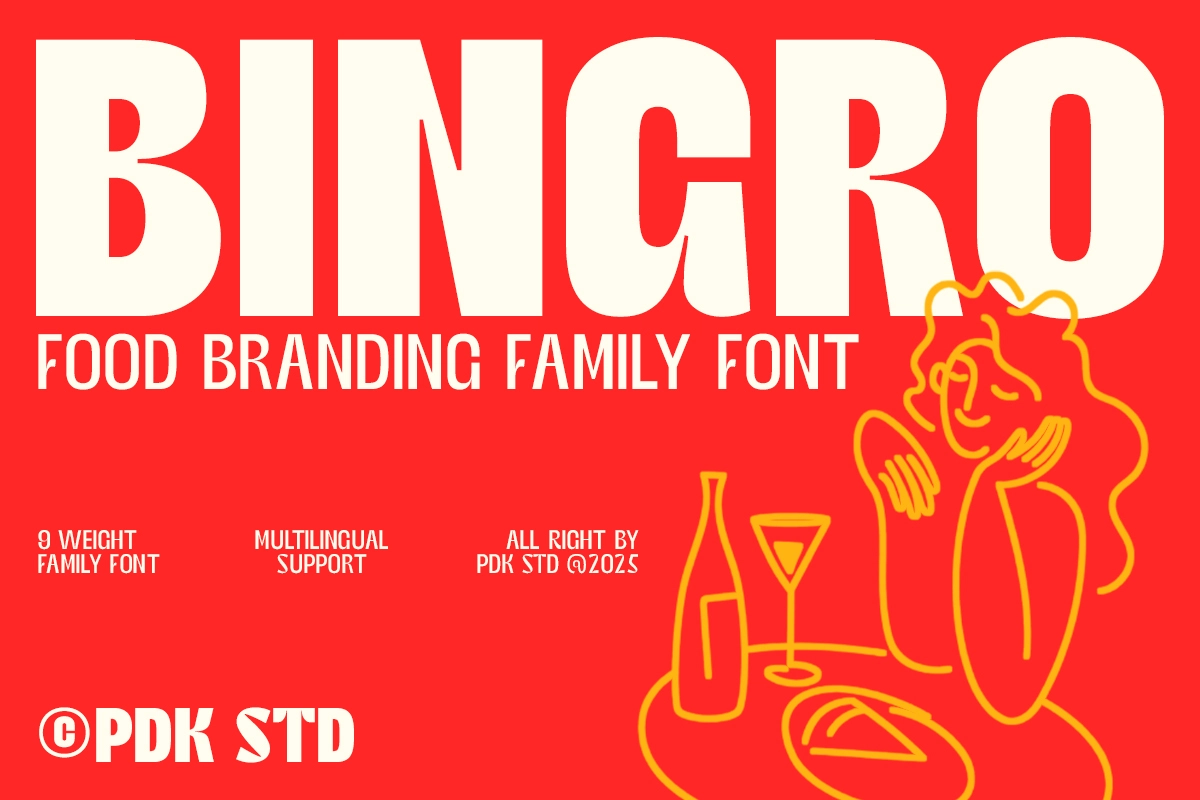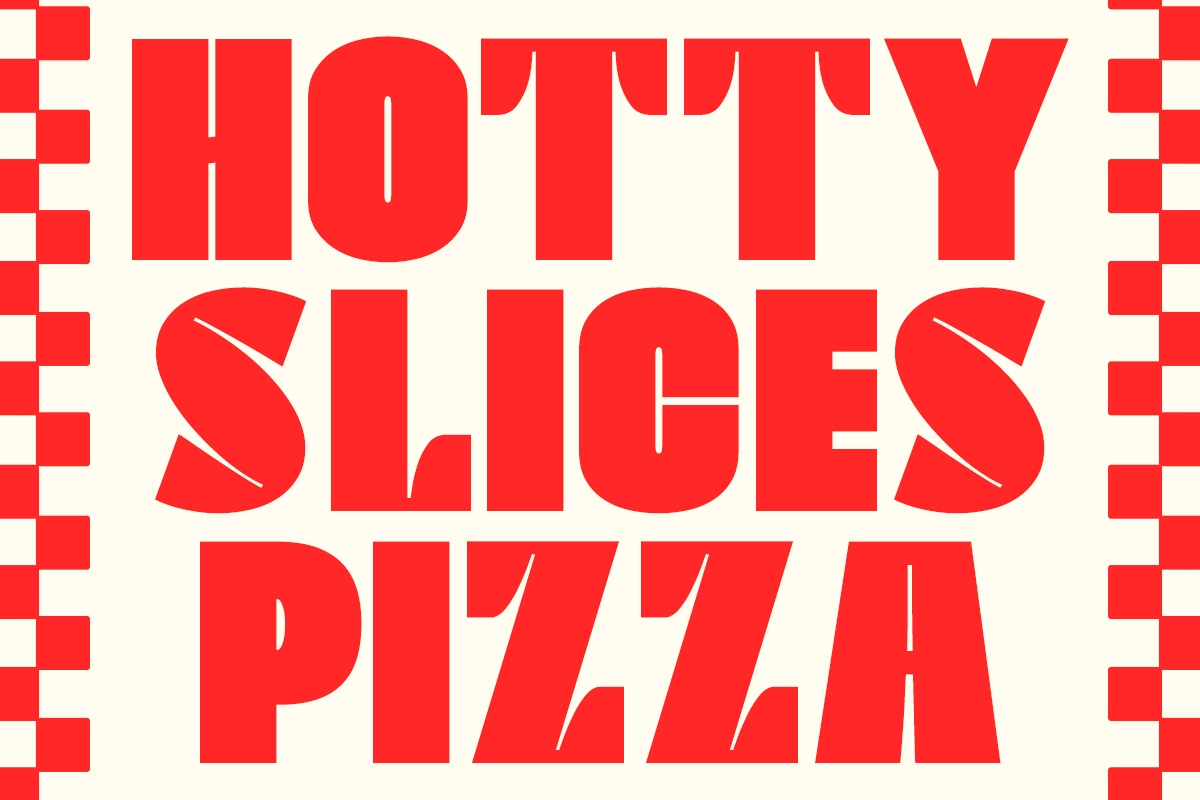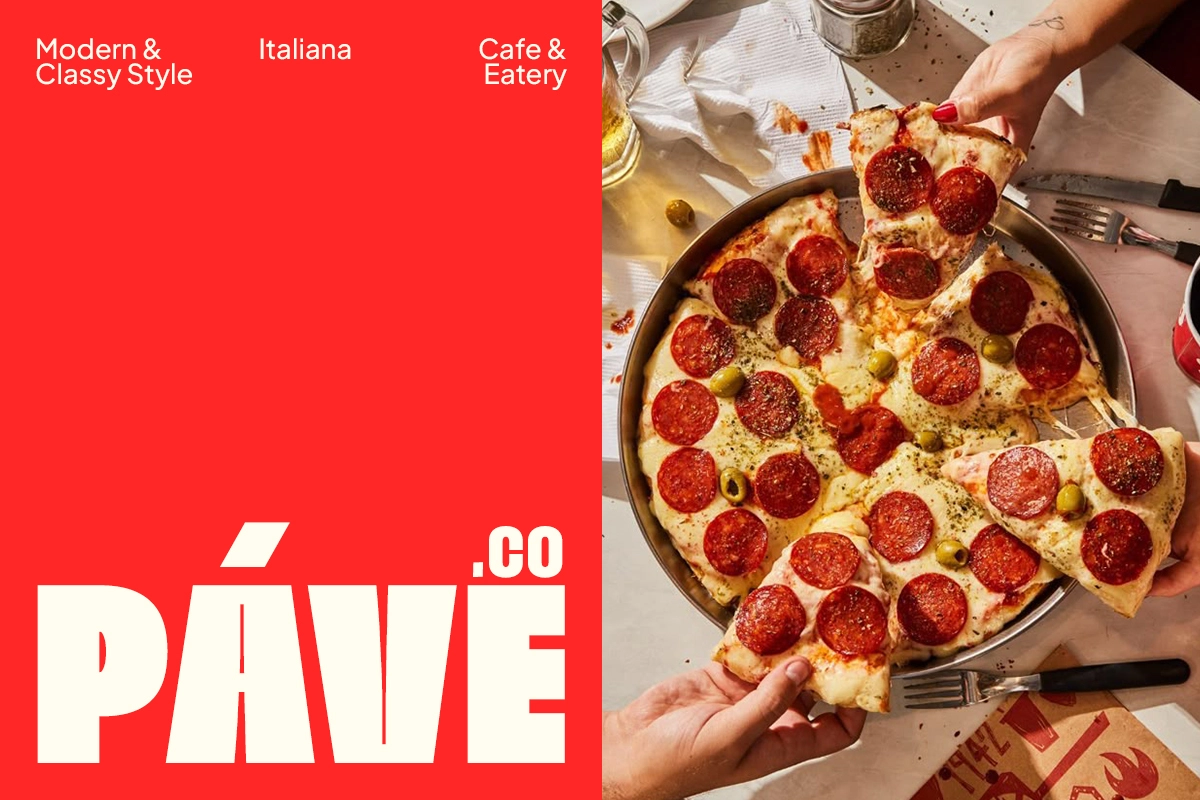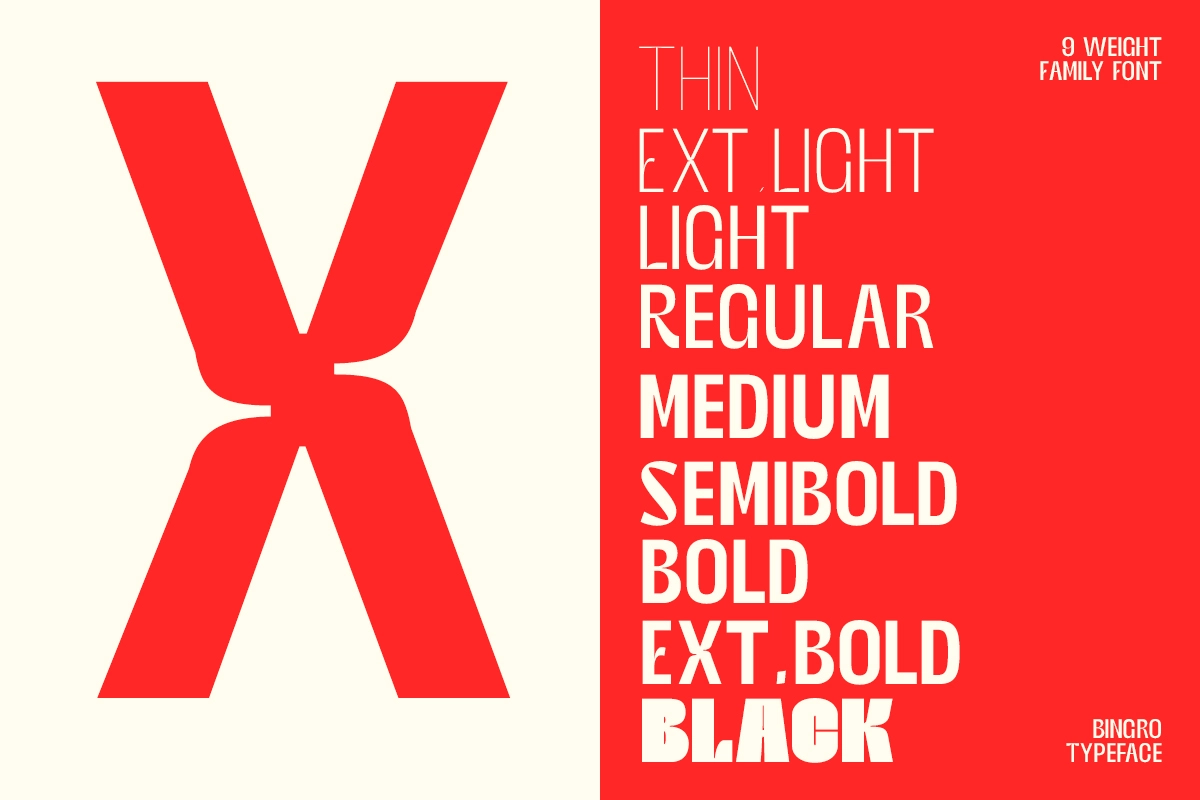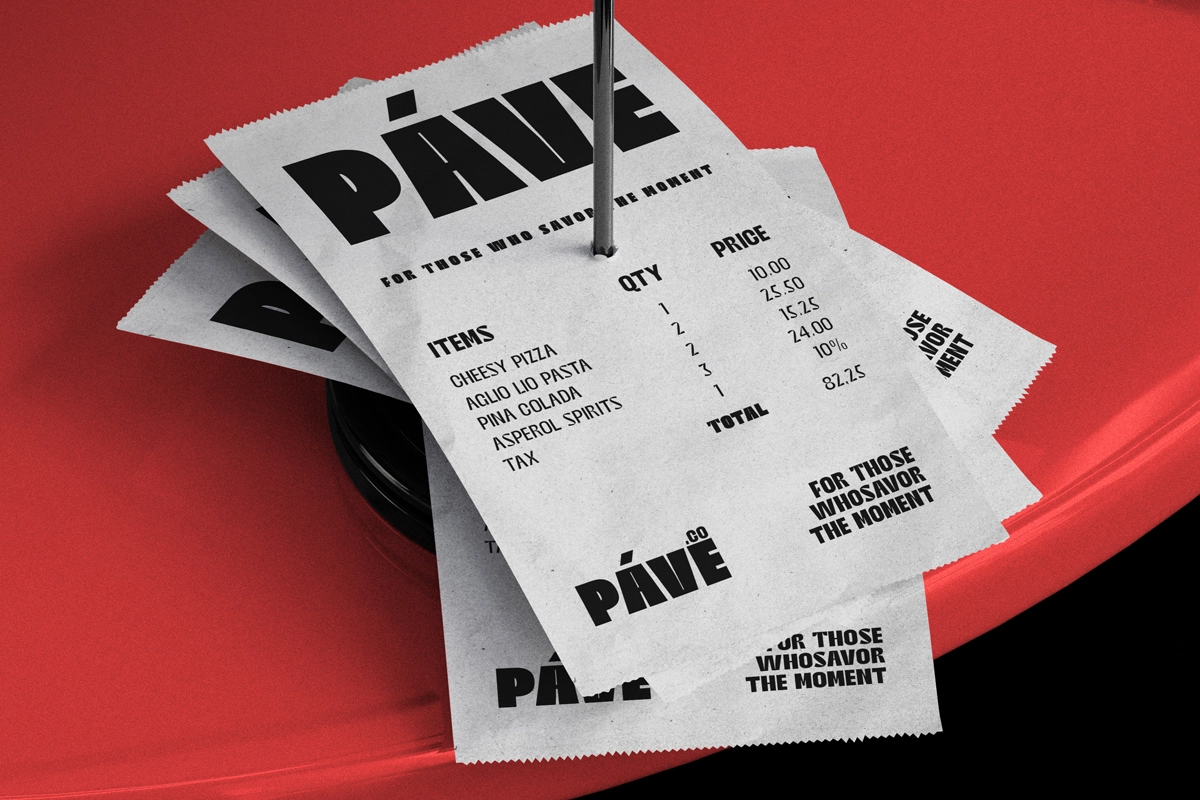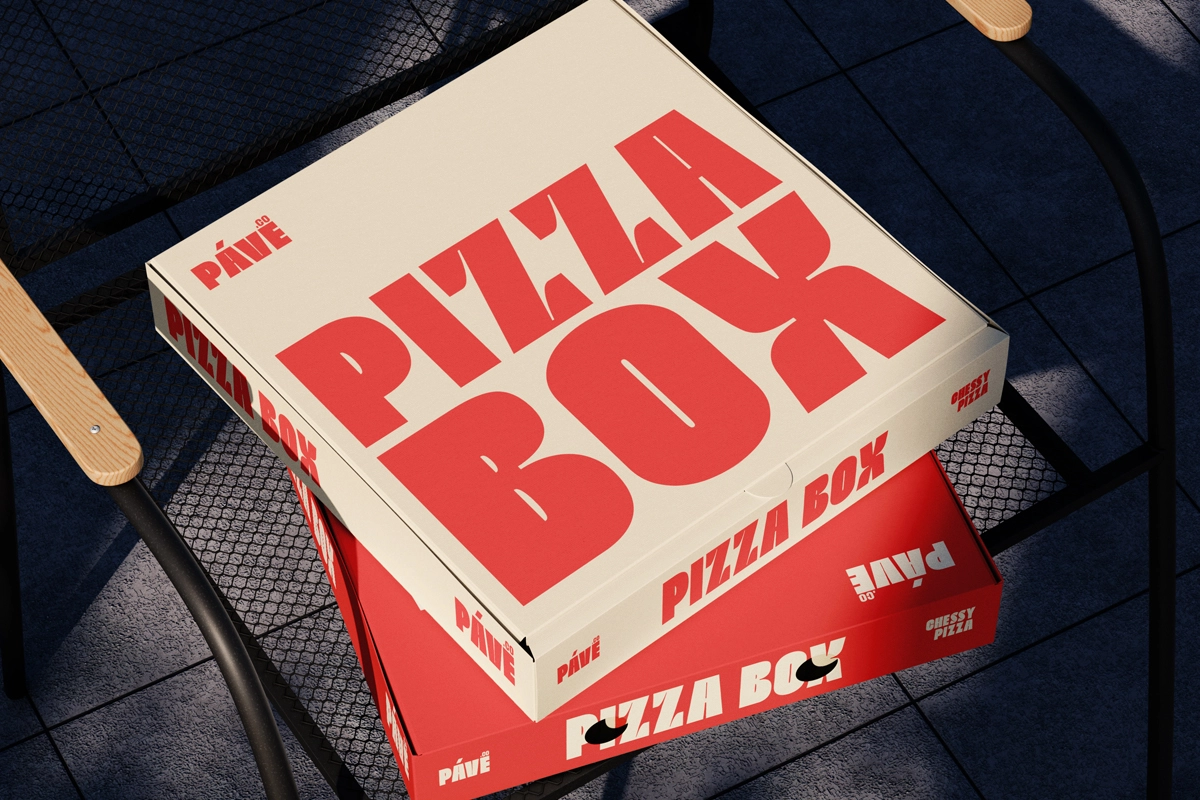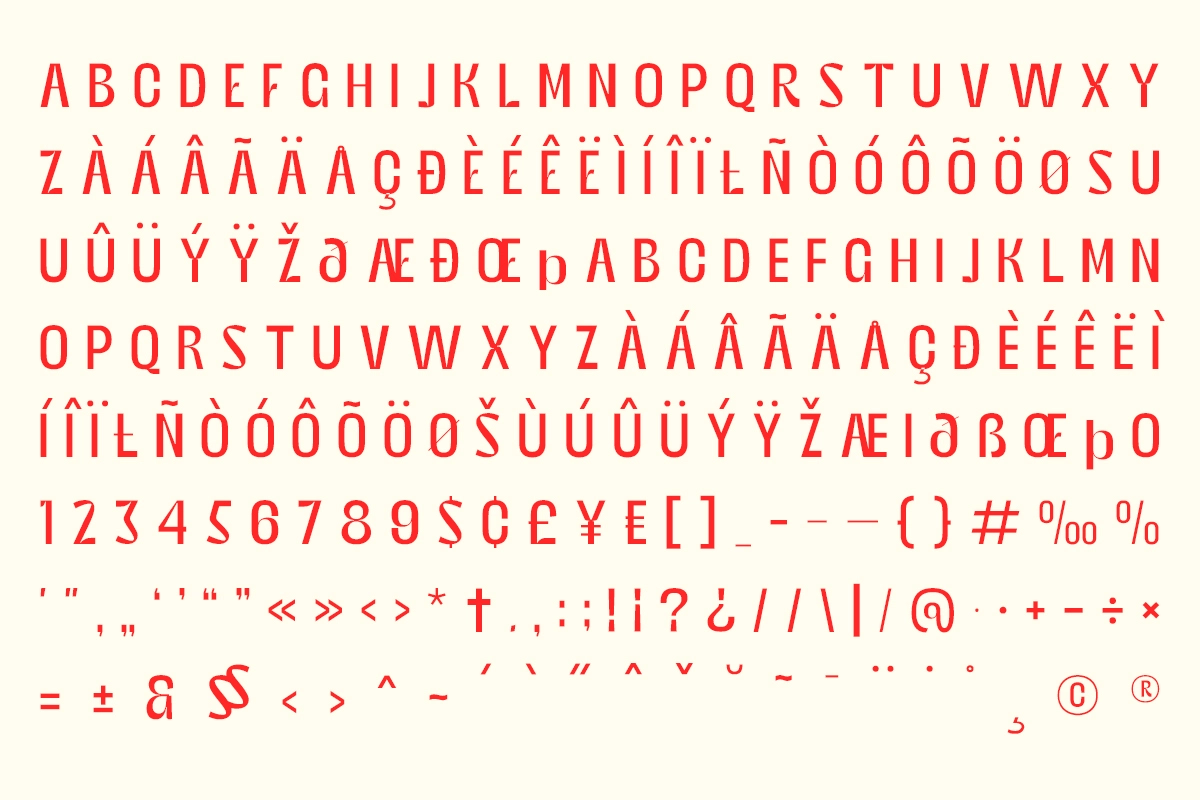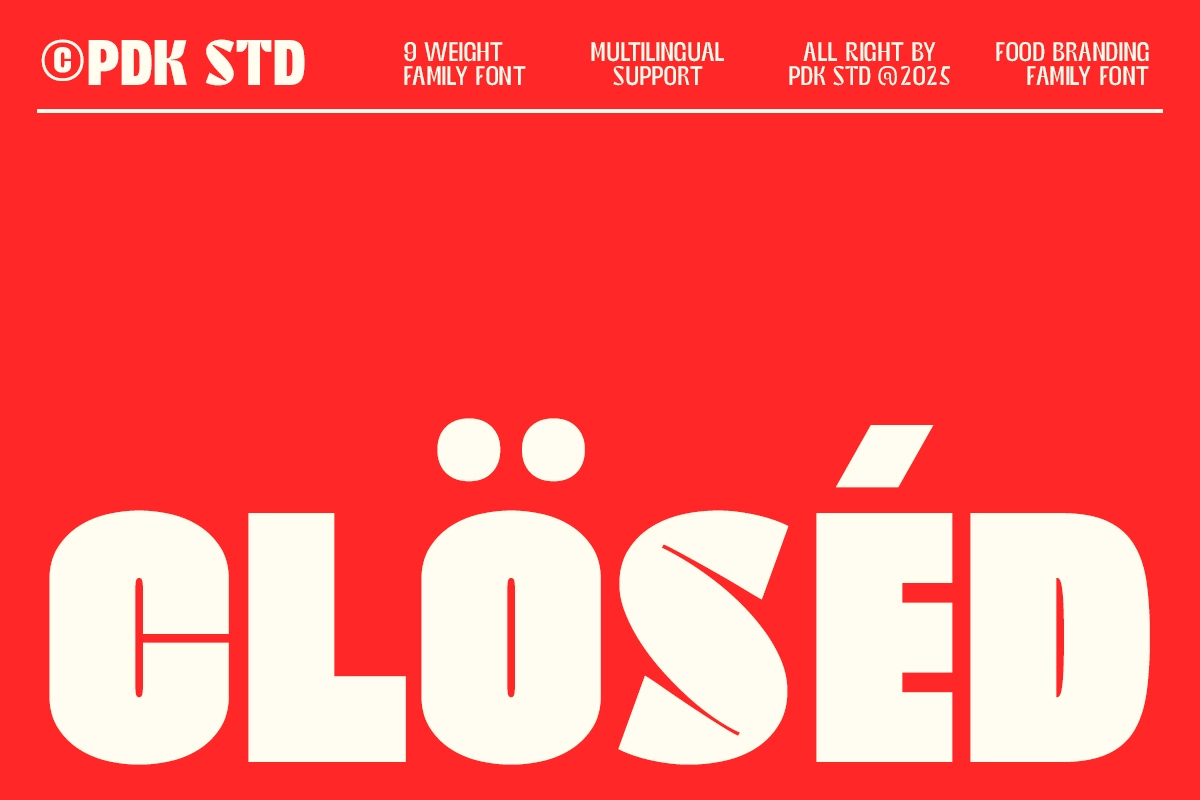
Bingro - Bold Food Branding Family Font
Bingro is a bold, rounded display family built for food branding, with chunky slab-like strokes, soft curved corners, and stencil-style cuts in letters like S and O that keep the shapes graphic without going illegible. Across nine weights, the construction holds steady from Thin's wiry stroke to Black's dense, appetite-driving bulk.
Bingro scales from delicate menu text to shout-it-from-the-window signage without losing its shape. Use it for restaurant branding, café and bakery identities, packaging, food truck signage, menu design, storefront lettering, and social media promos.
- 9 Static weights: Thin, Extra Light, Light, Regular, Medium, Semi Bold, Bold, Extra Bold, Black;
- Uppercase & lowercase;
- Numerals, punctuation & symbols;
- Ligatures, fractions, and superscript/ordinal figures;
- Multilingual support;
- Variable Font